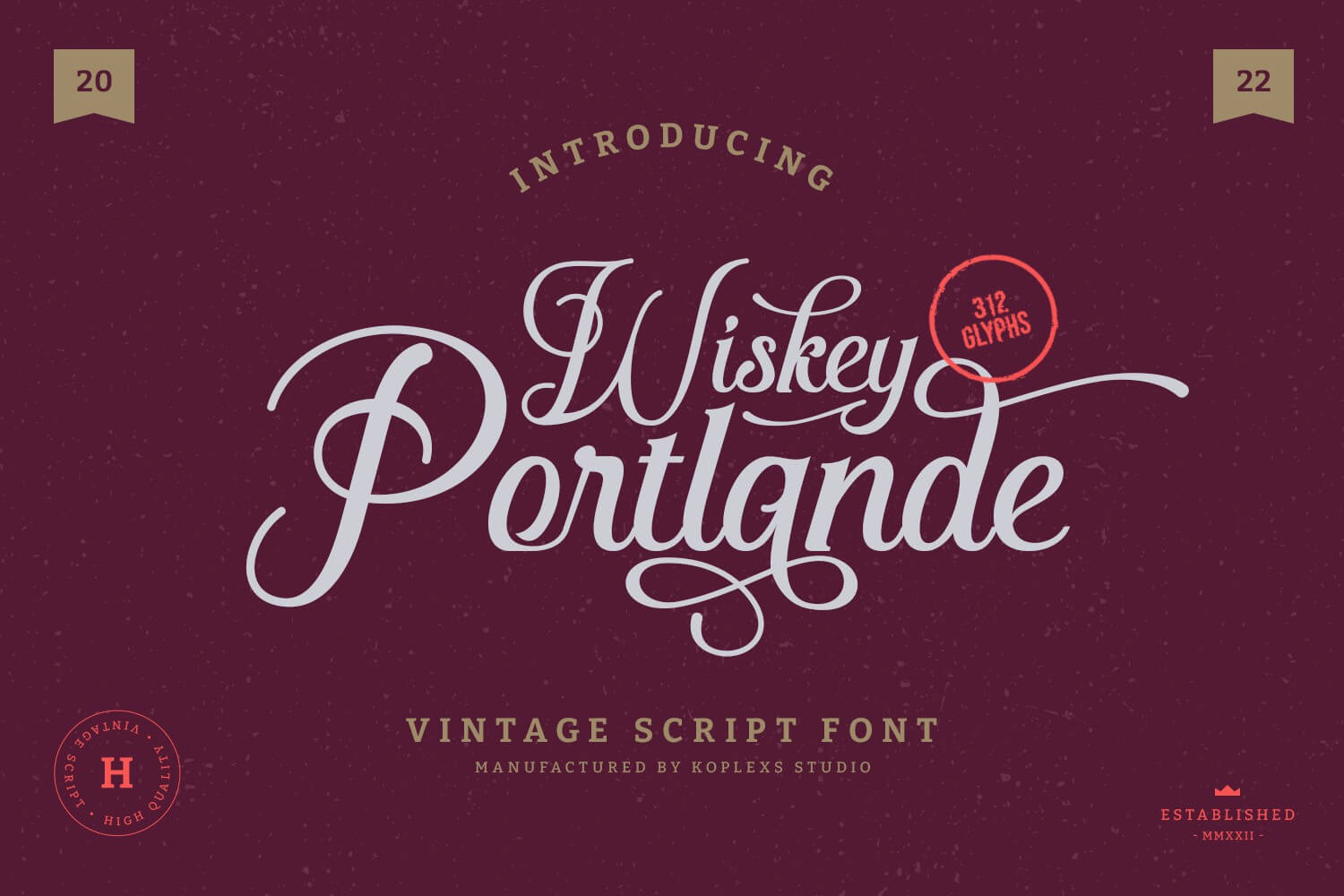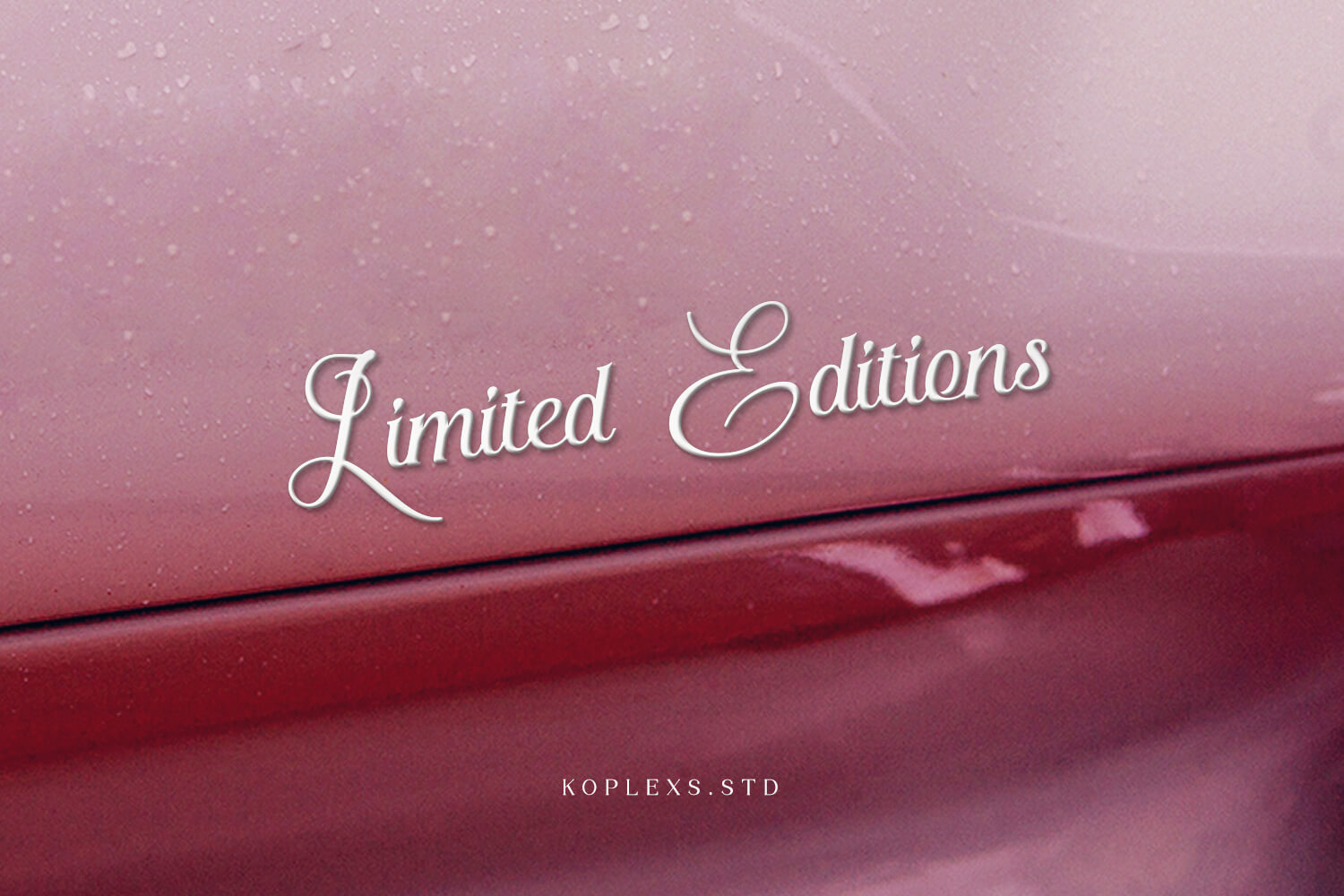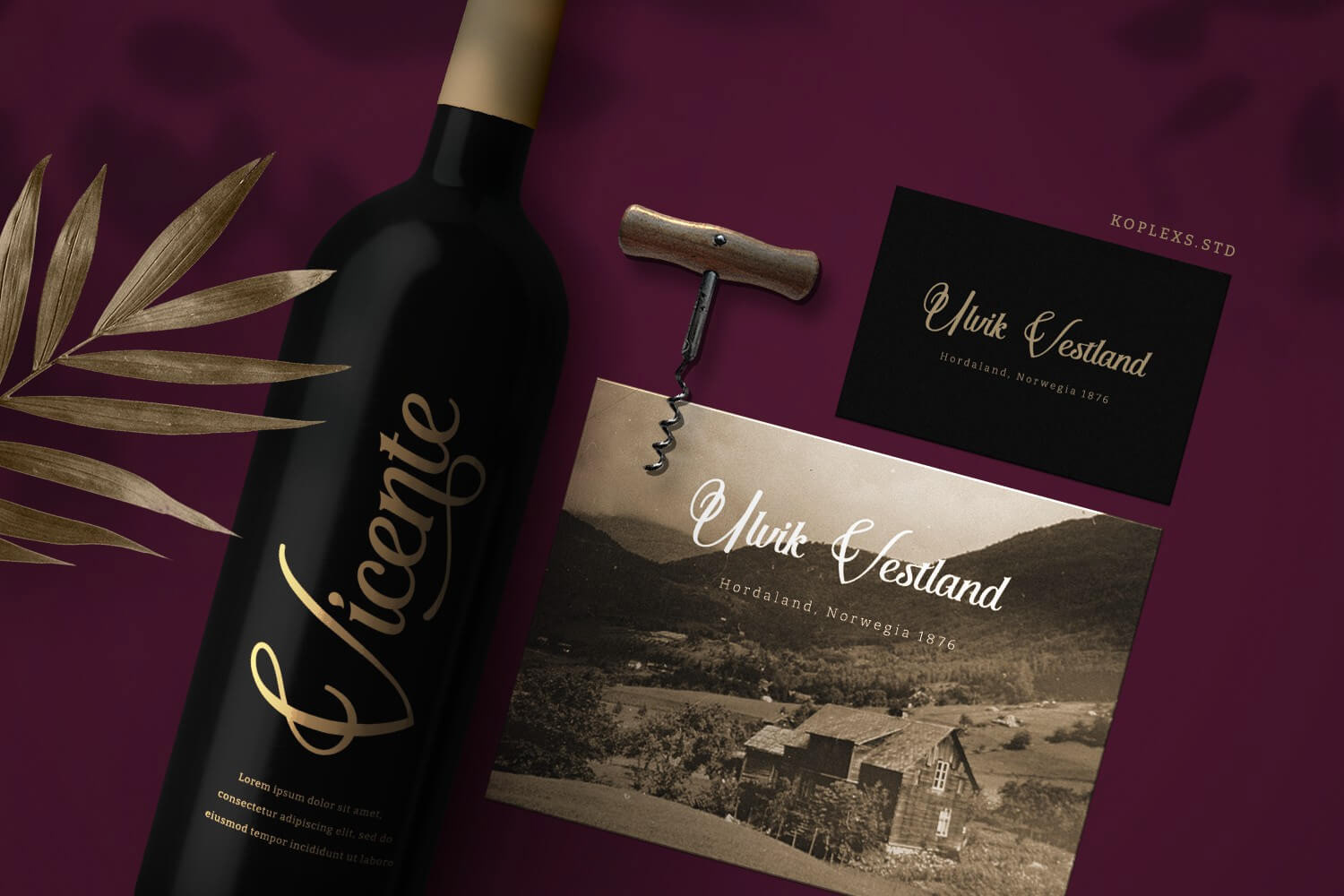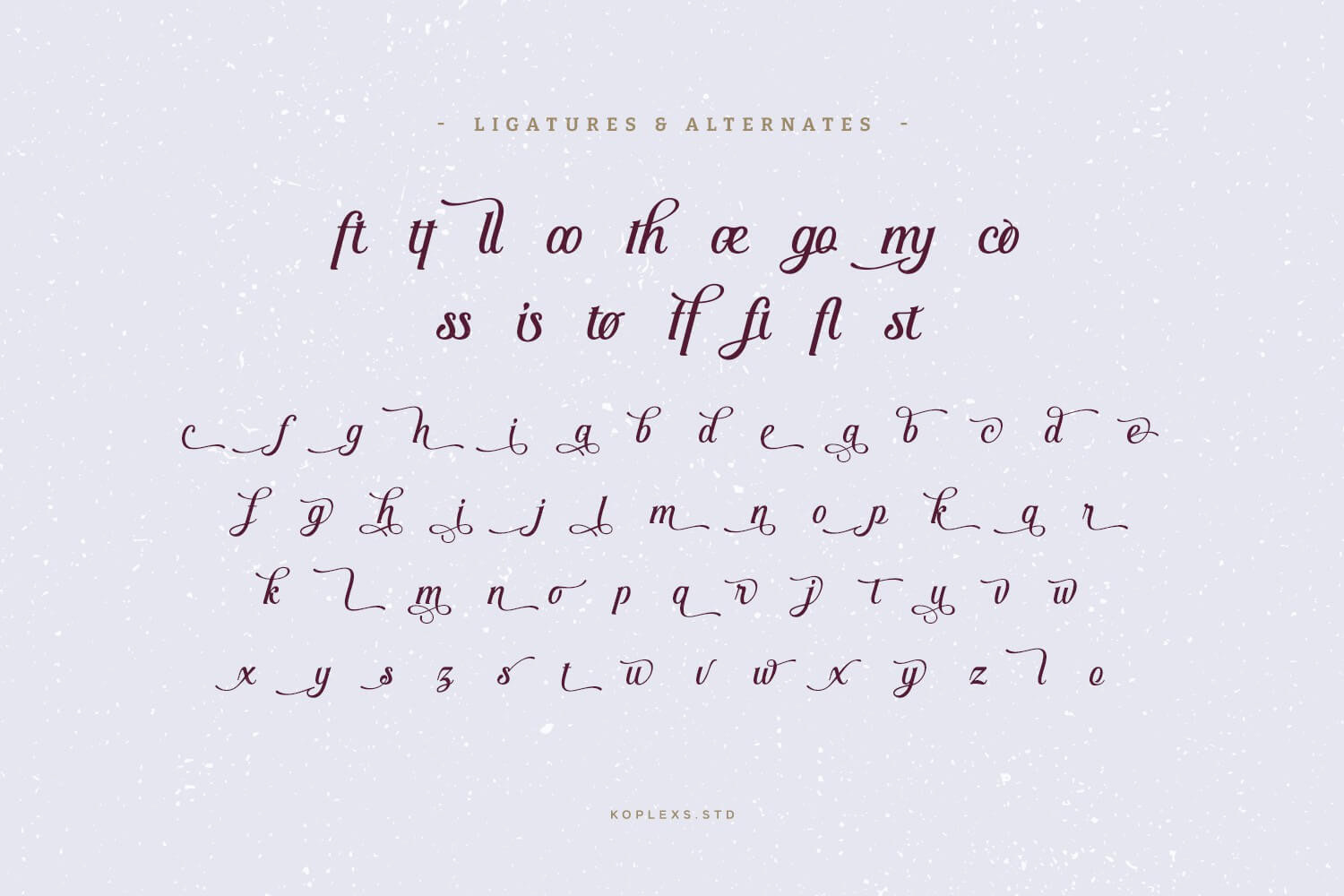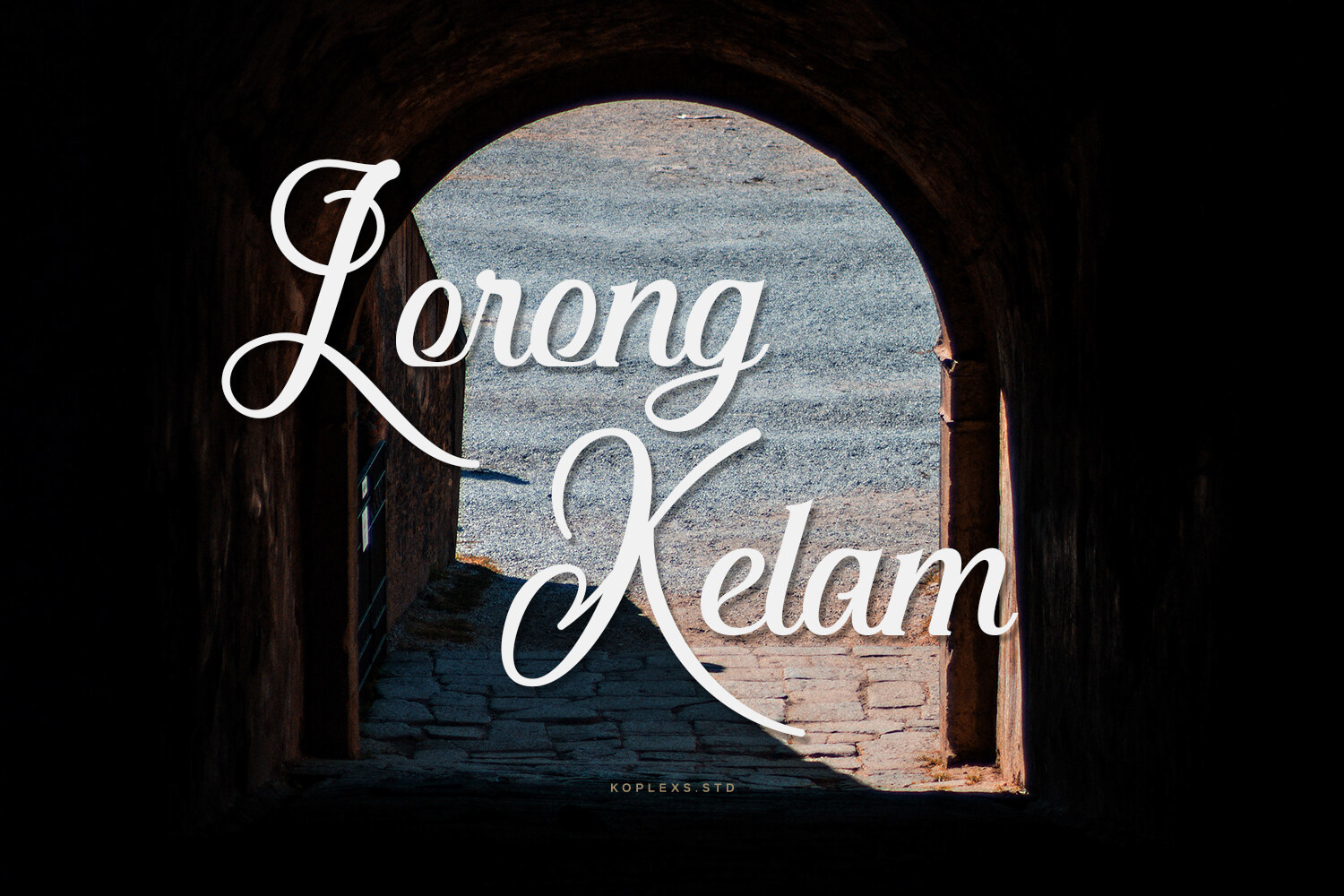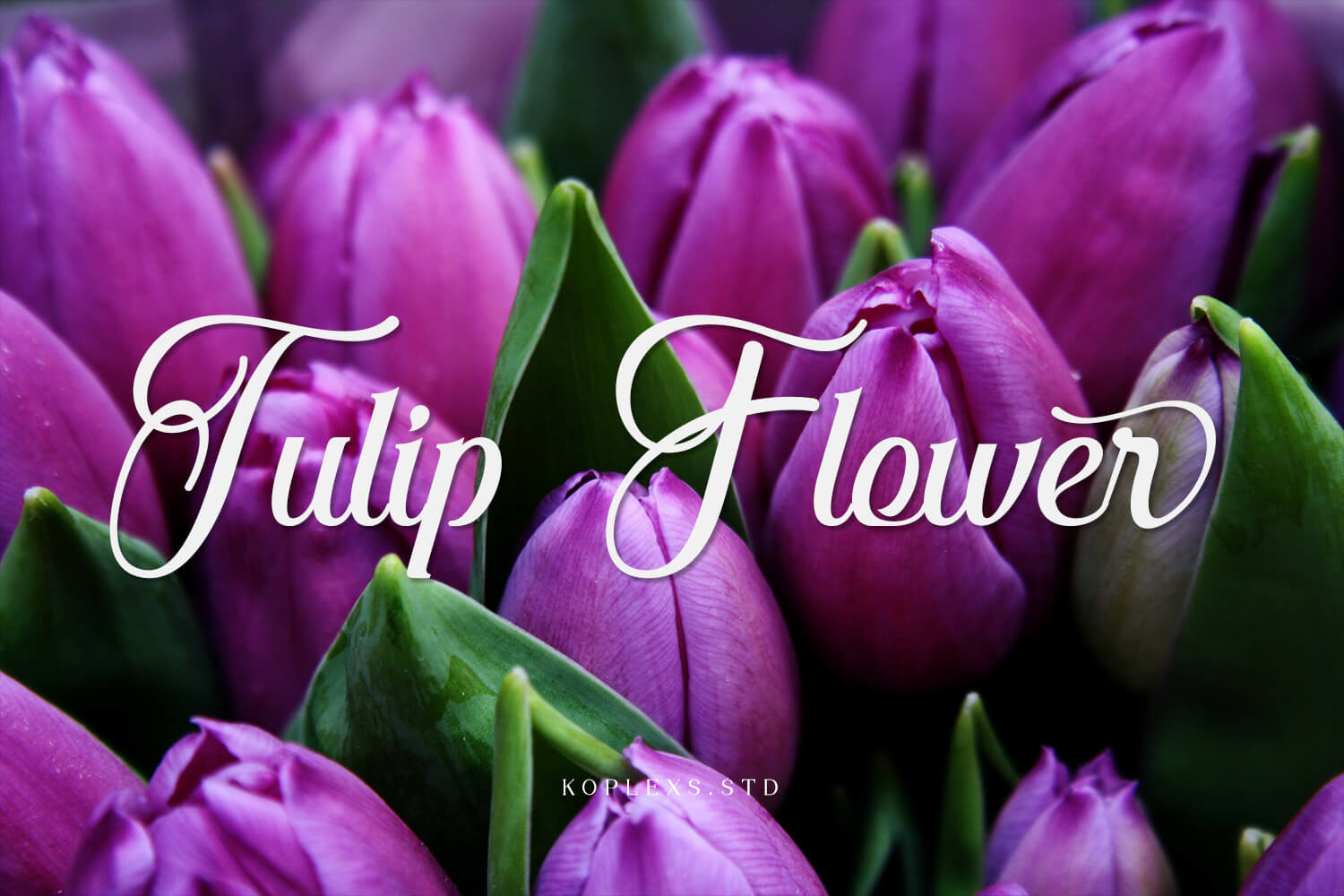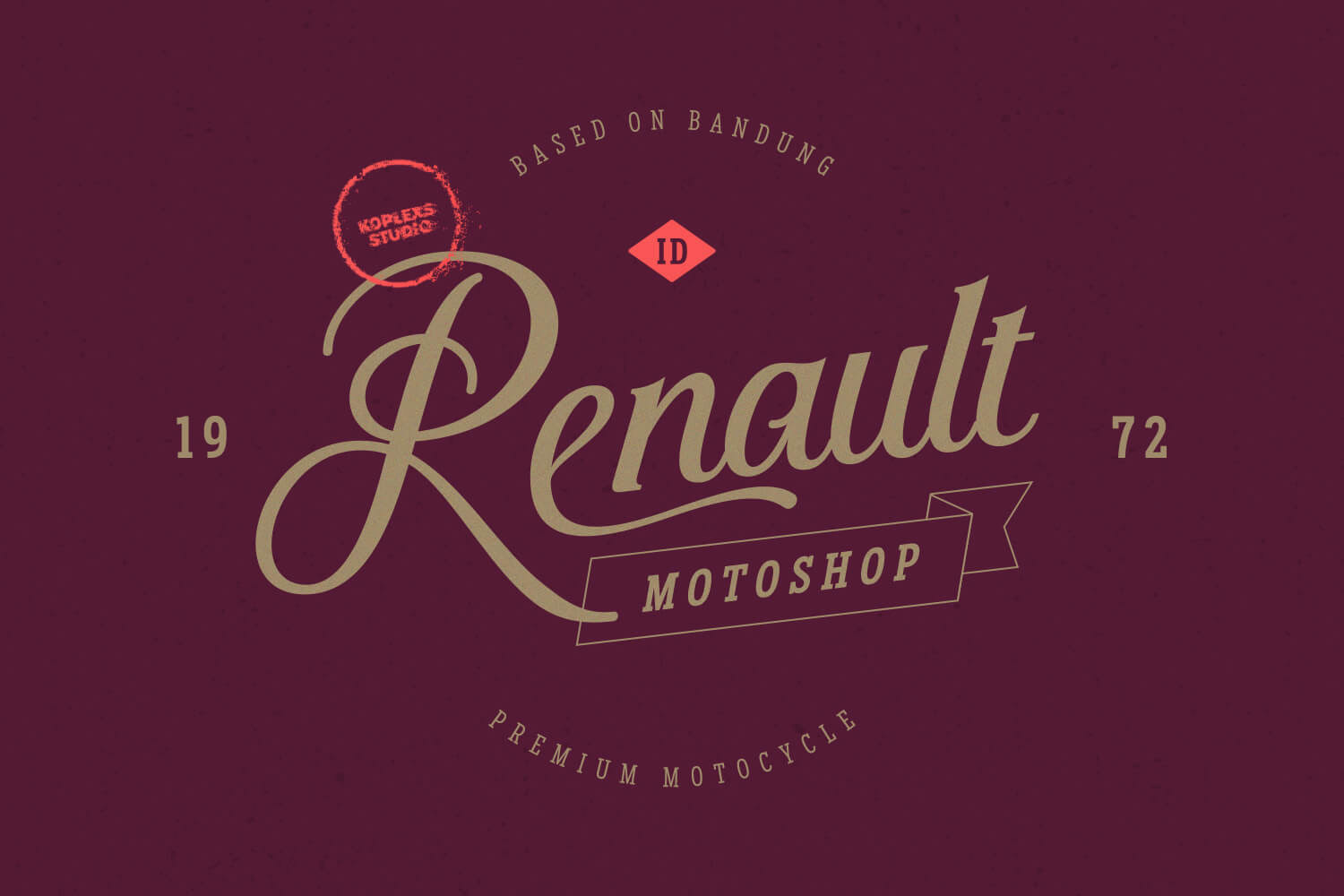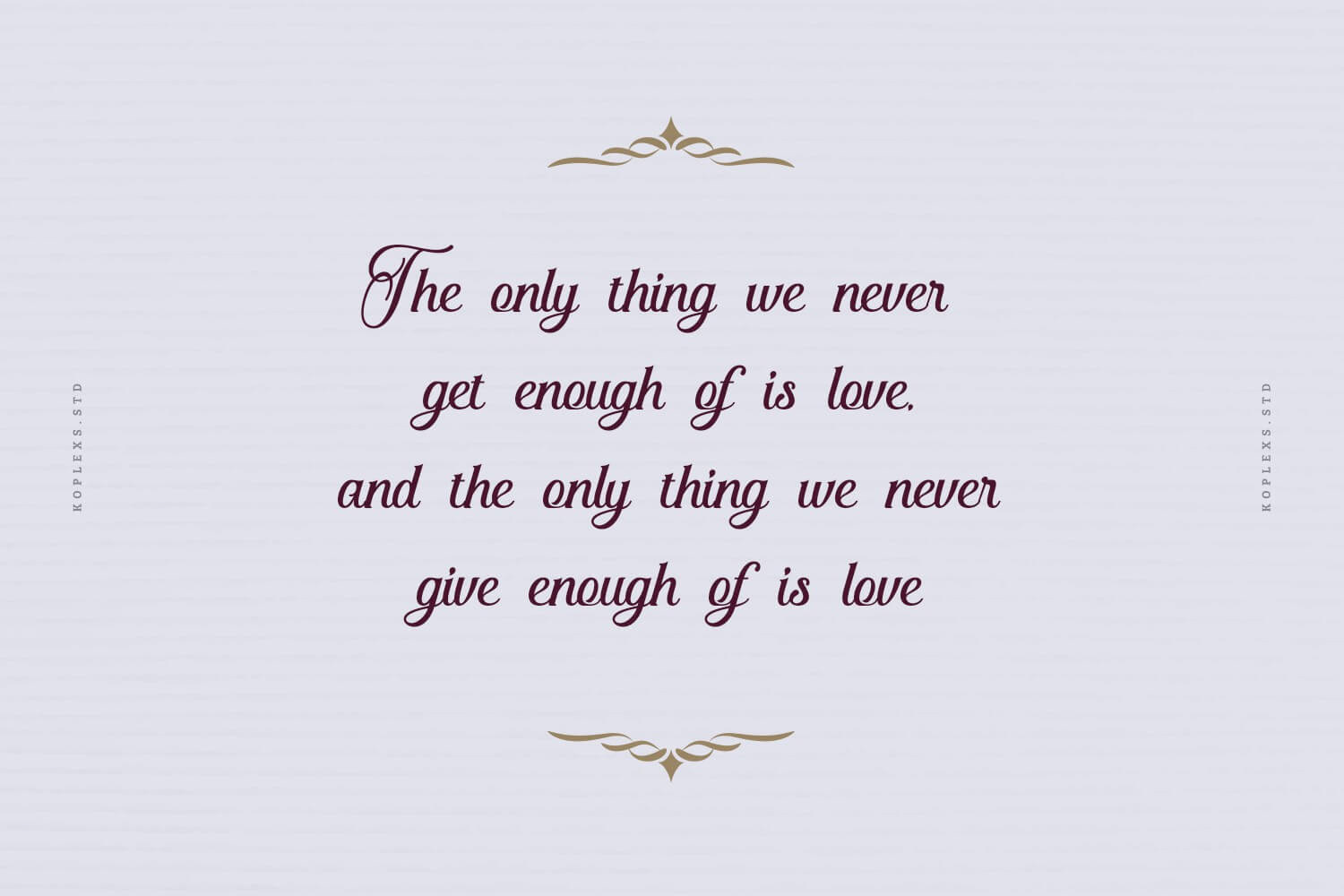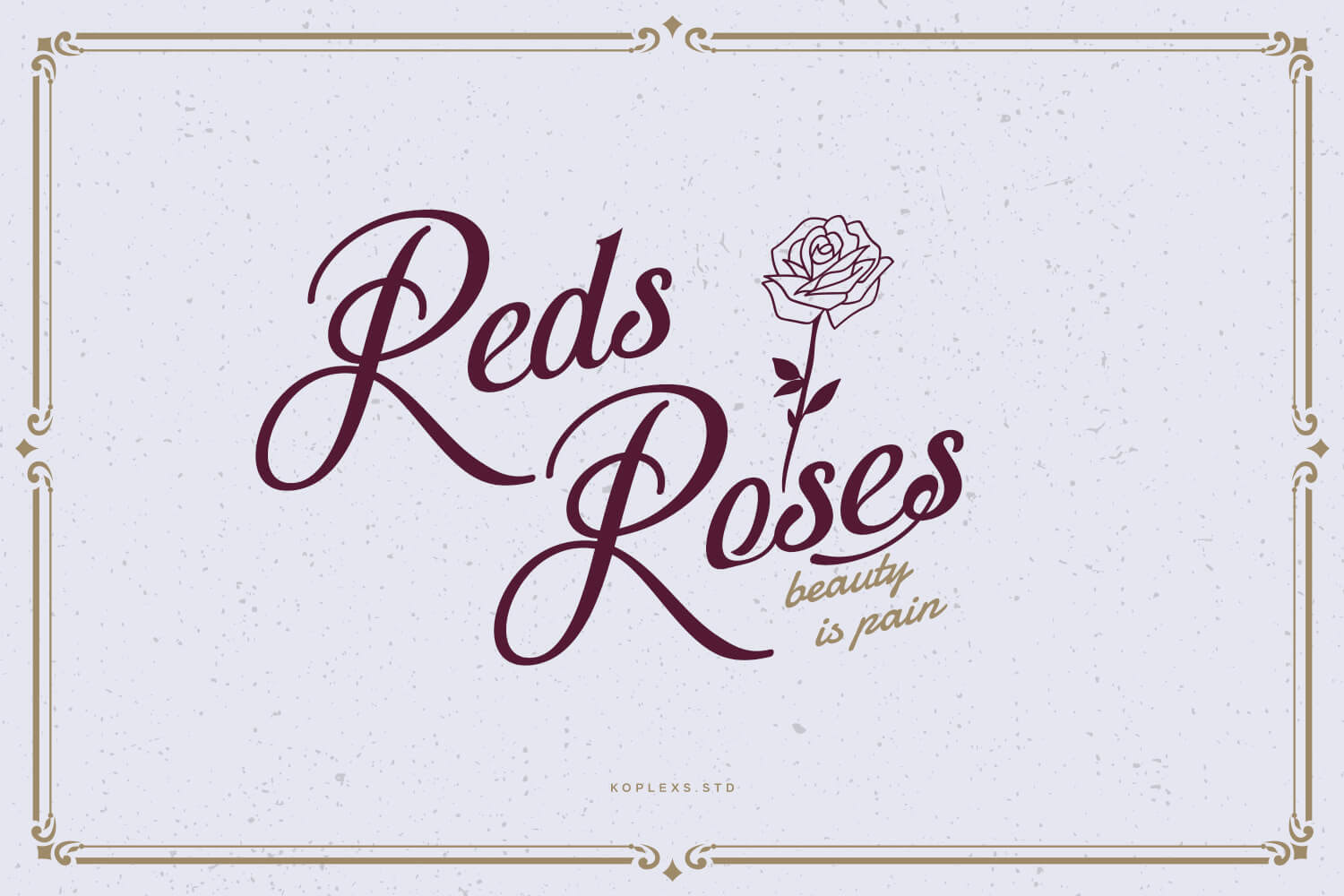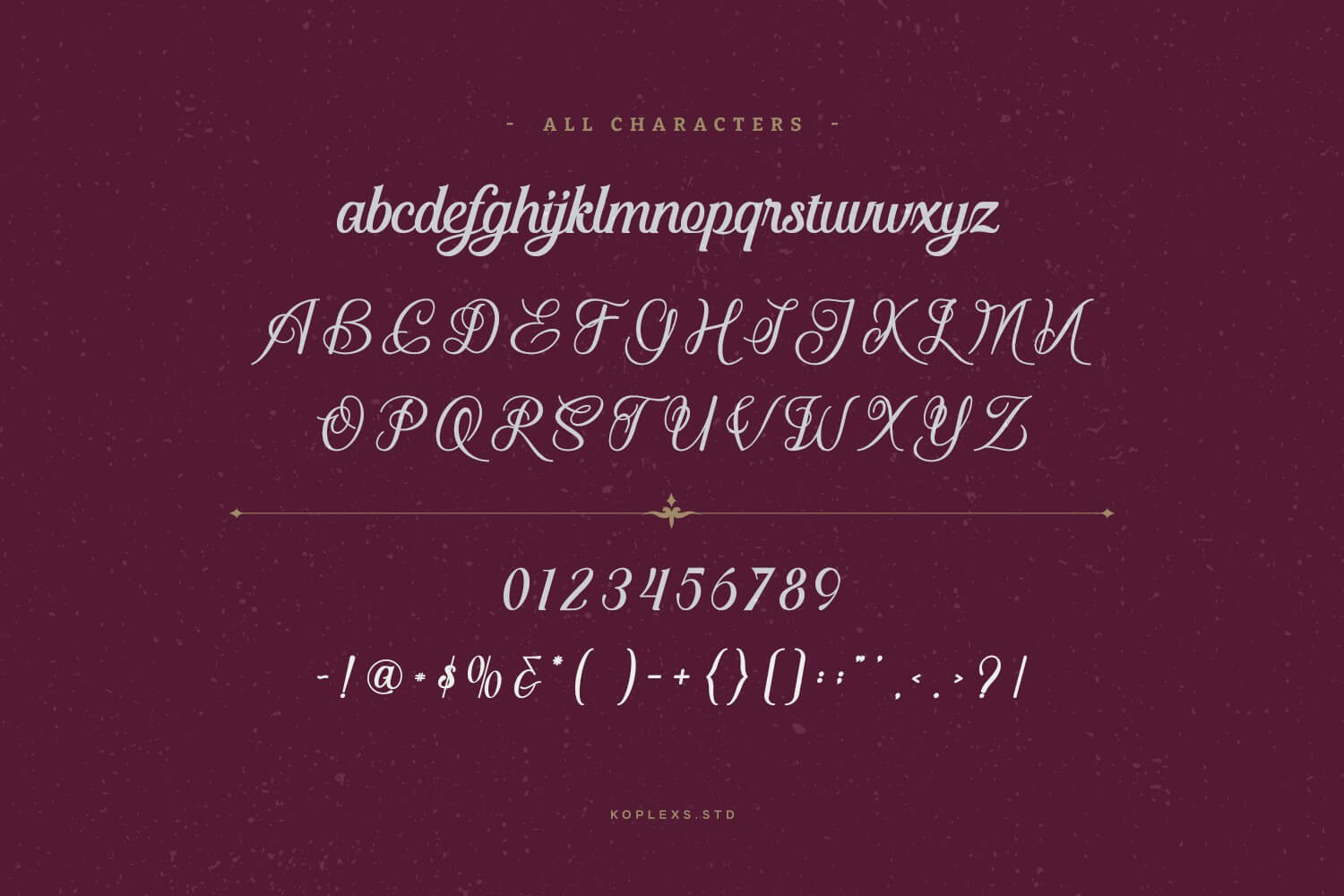
Wiskey Portlande - Vintage Script Font
Wiskey Portlande. This vintage script font is handwritten under the inspiration of traditional calligraphy envisioned in the 1980s, simple yet effective. In addition, I also made several alternatives that actually beautify it as a choice of multifunctional display fonts and will definitely beautify your layout and look very professional and have a firm character. In general, this font creates a luxurious and elegant design appearance.
Wiskey Portlande Font Is very suitable for branding projects, logos, product packaging, product designs, labels, packaging, pomade designs, barbershops and so on with vintage concepts and other classic Victorian concepts.